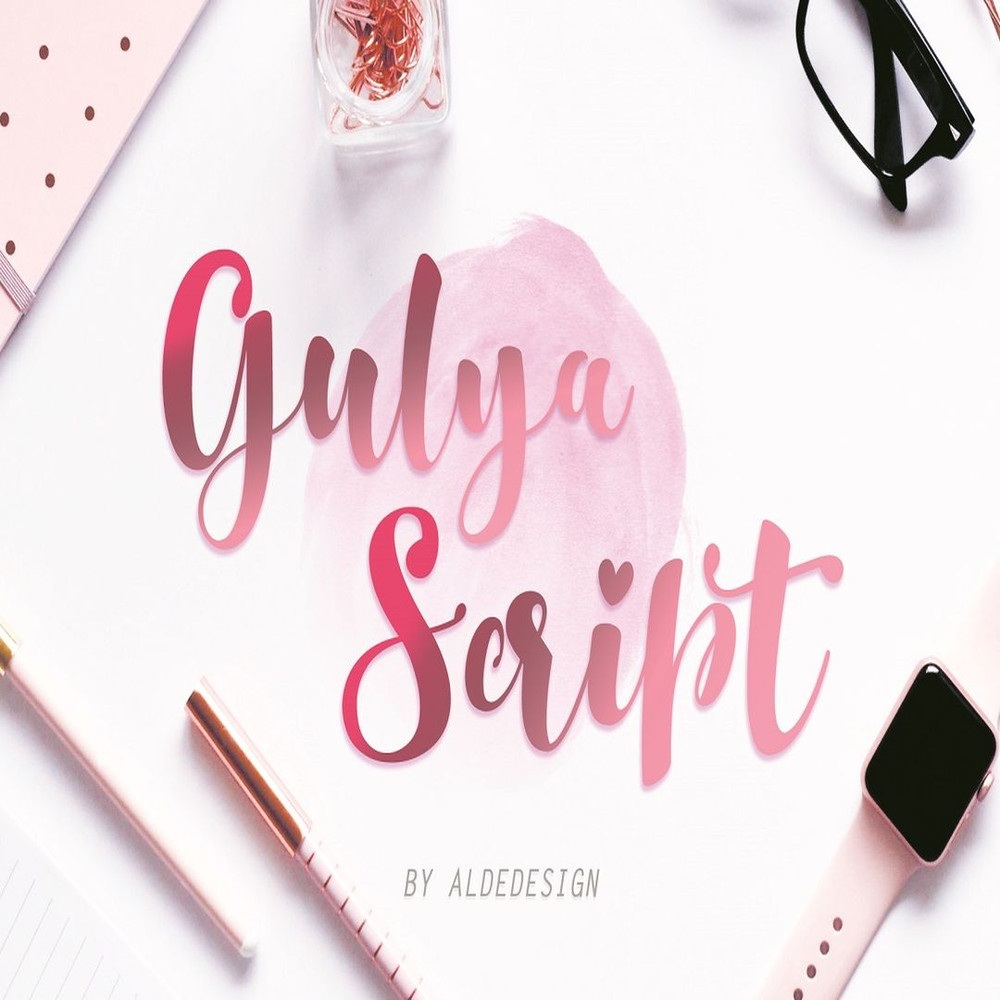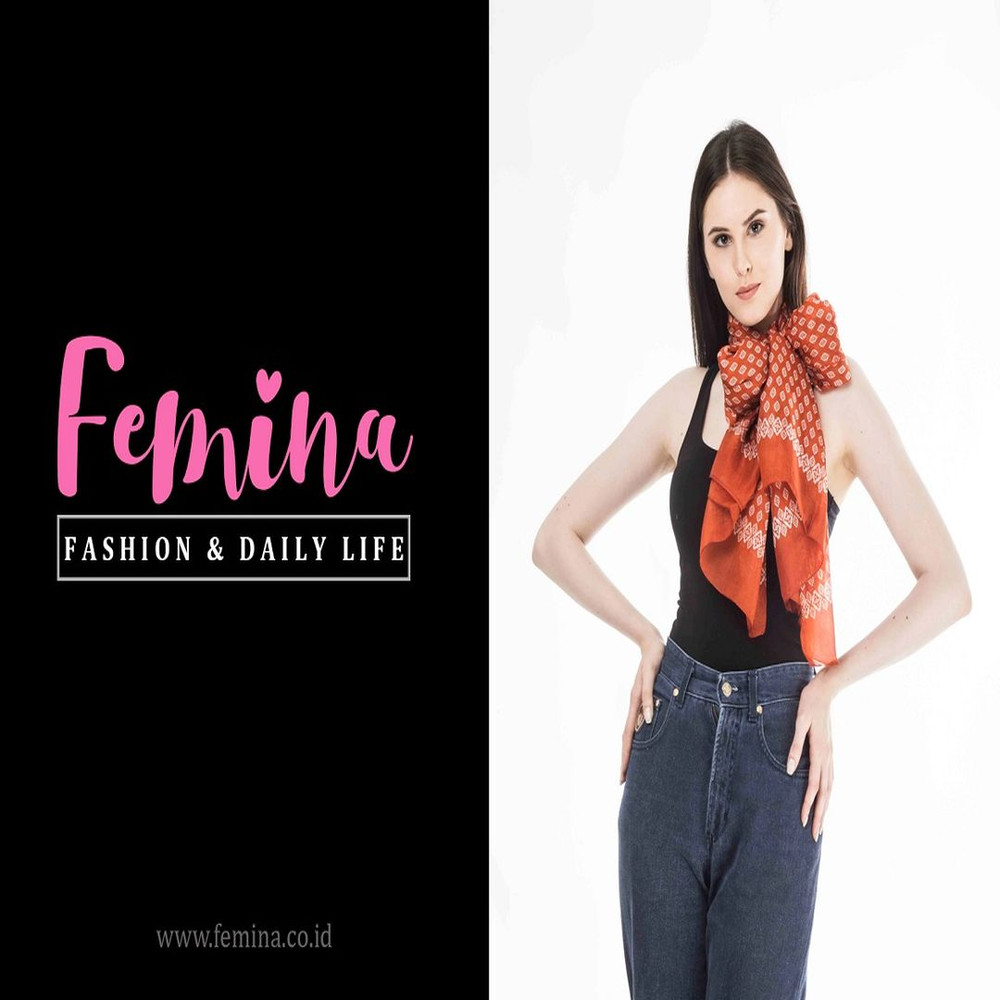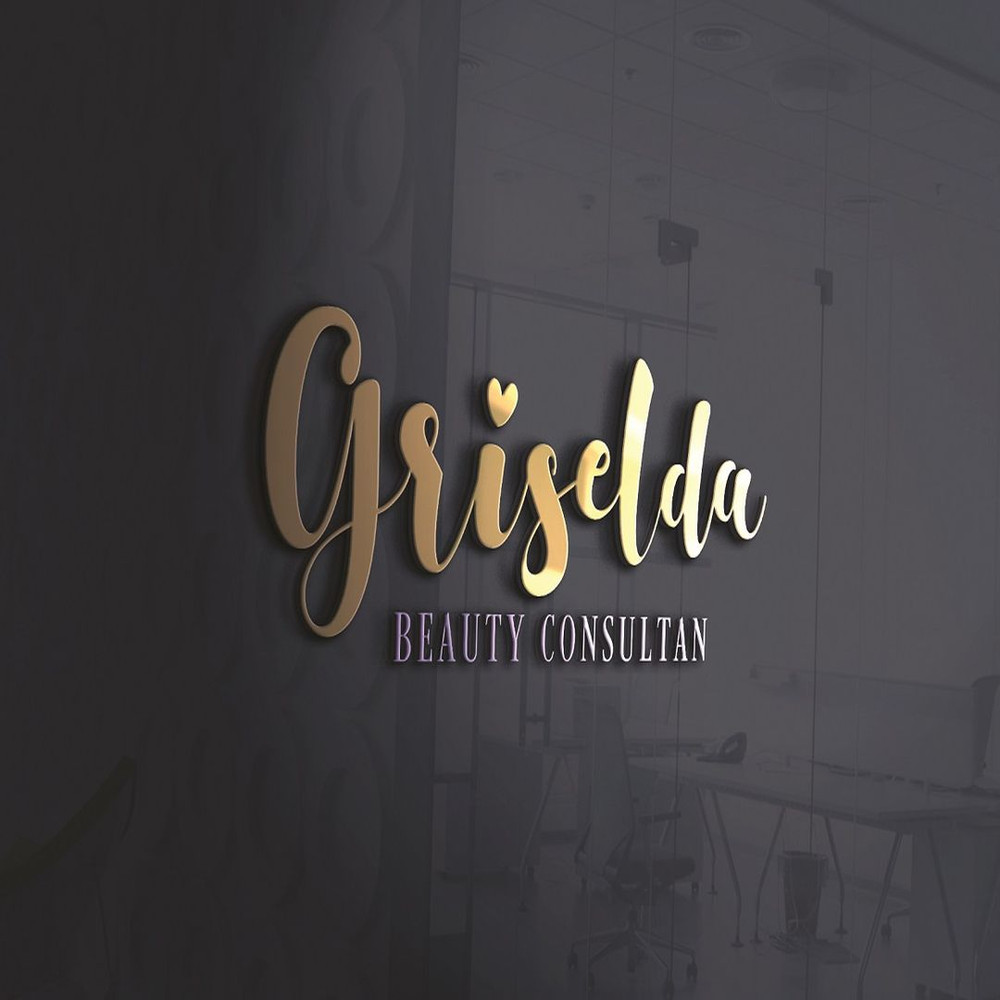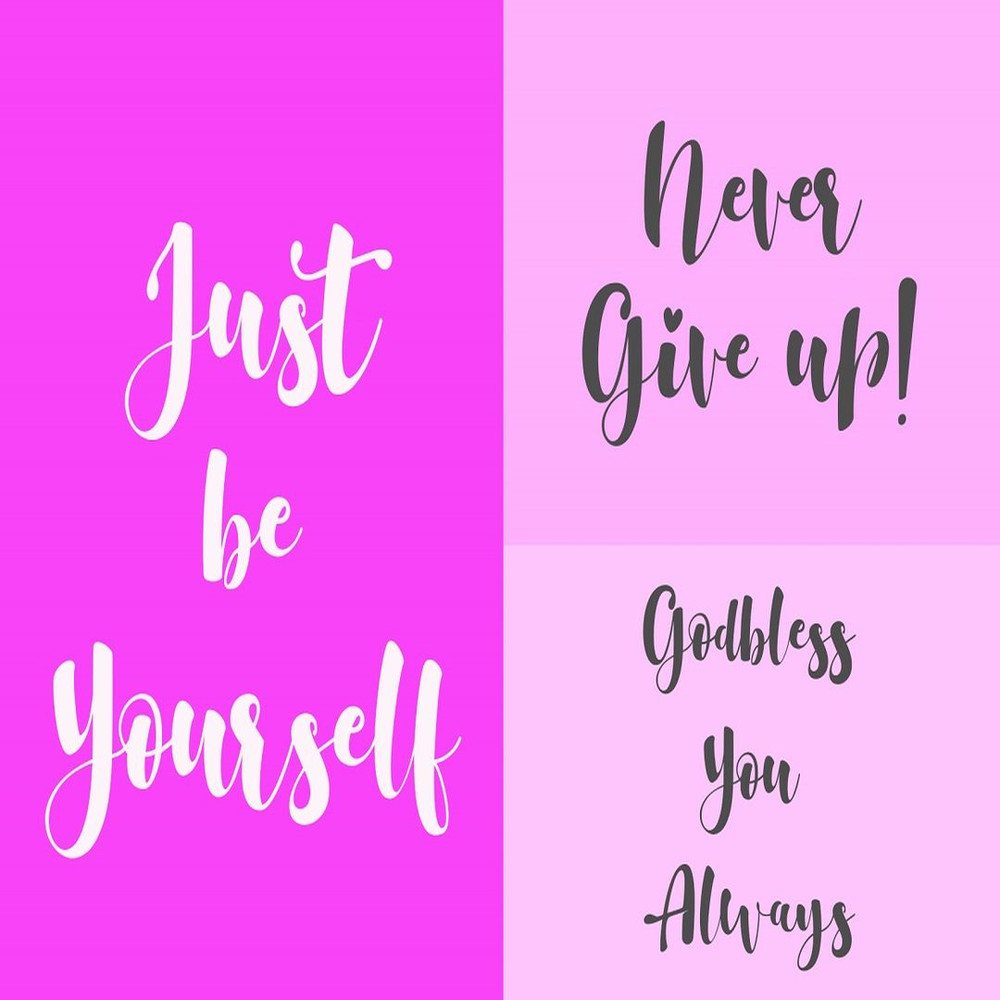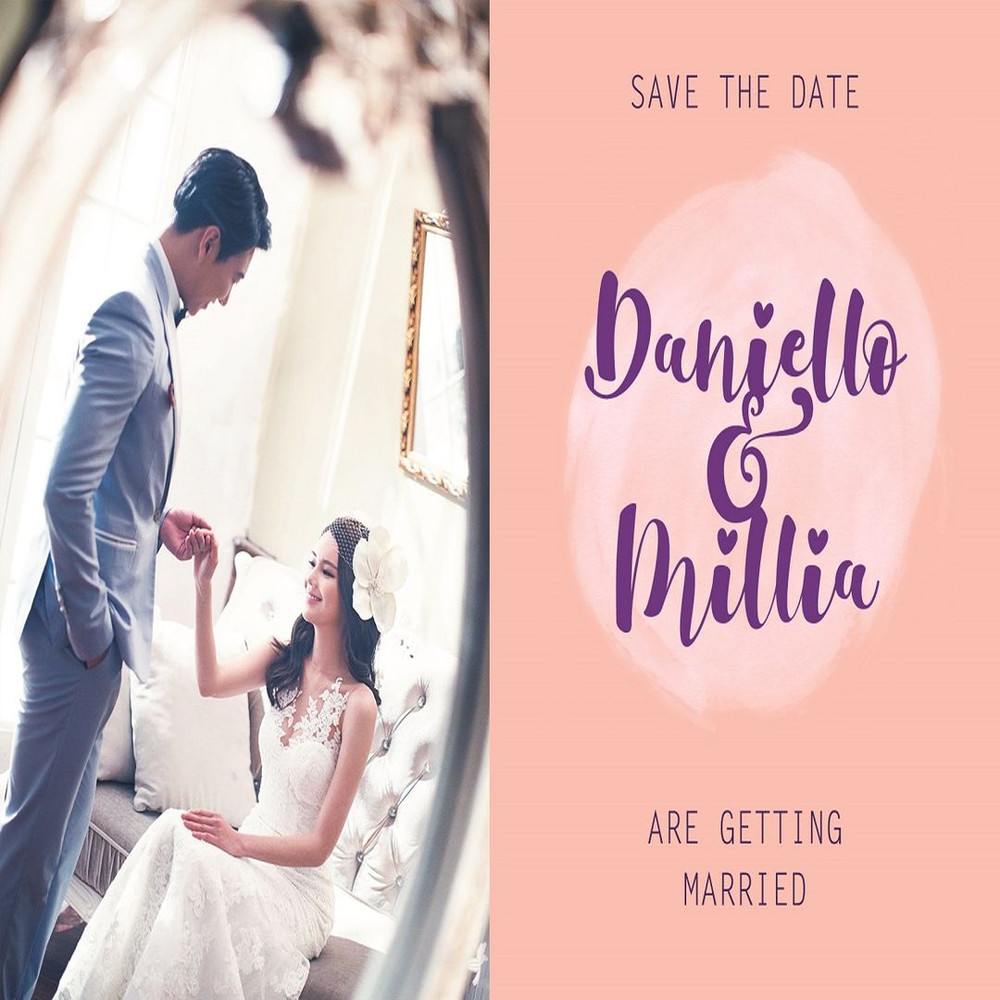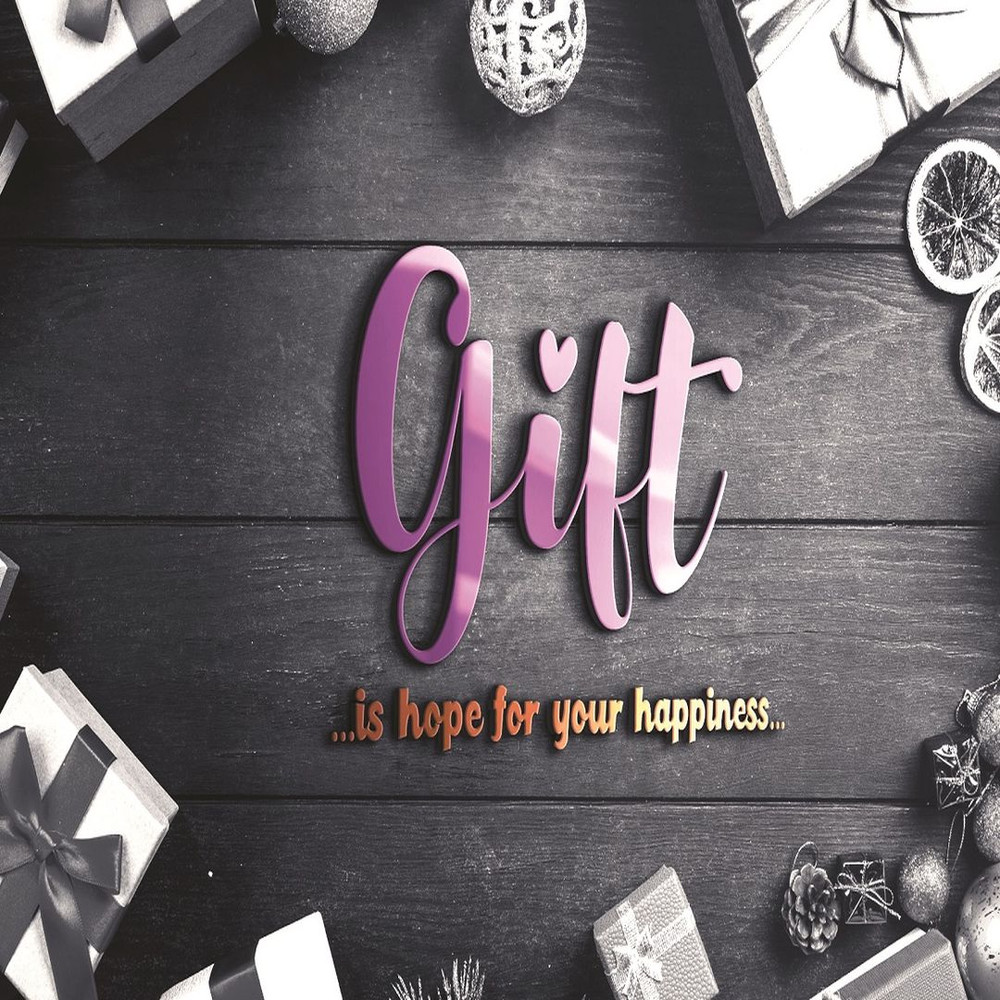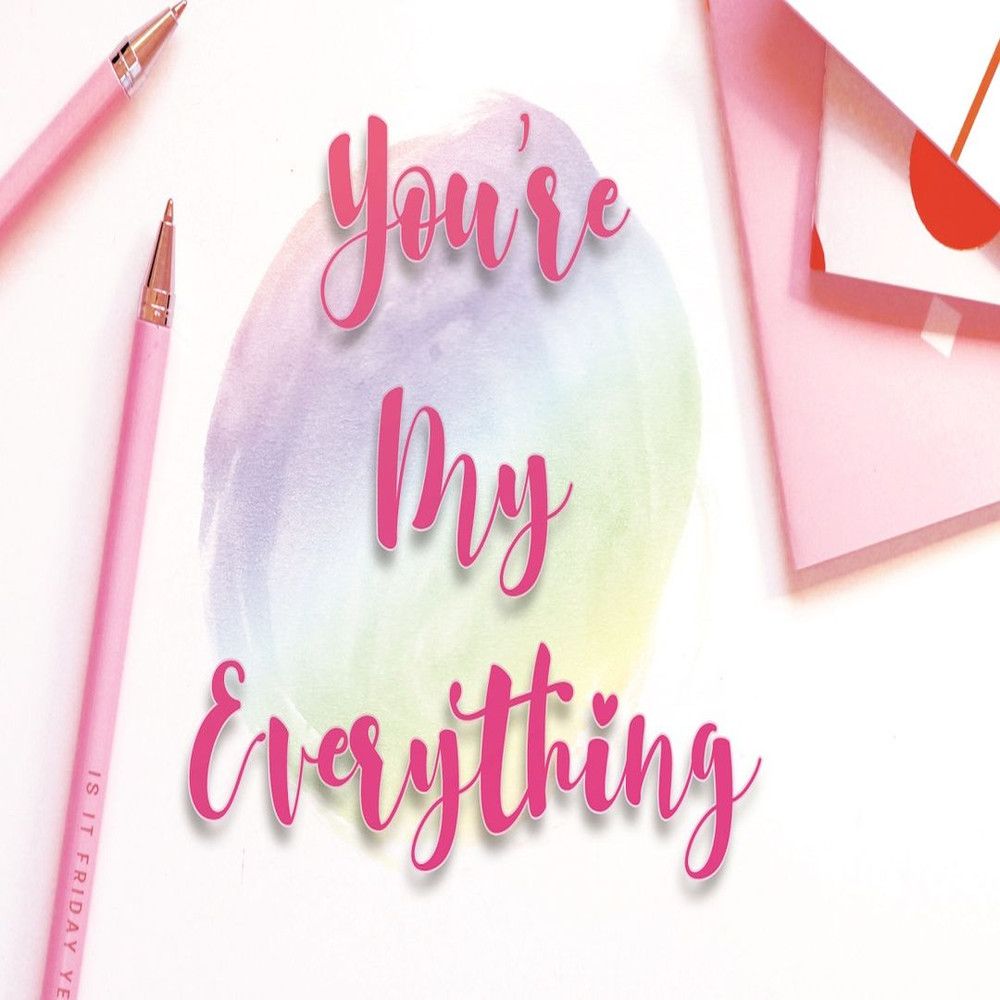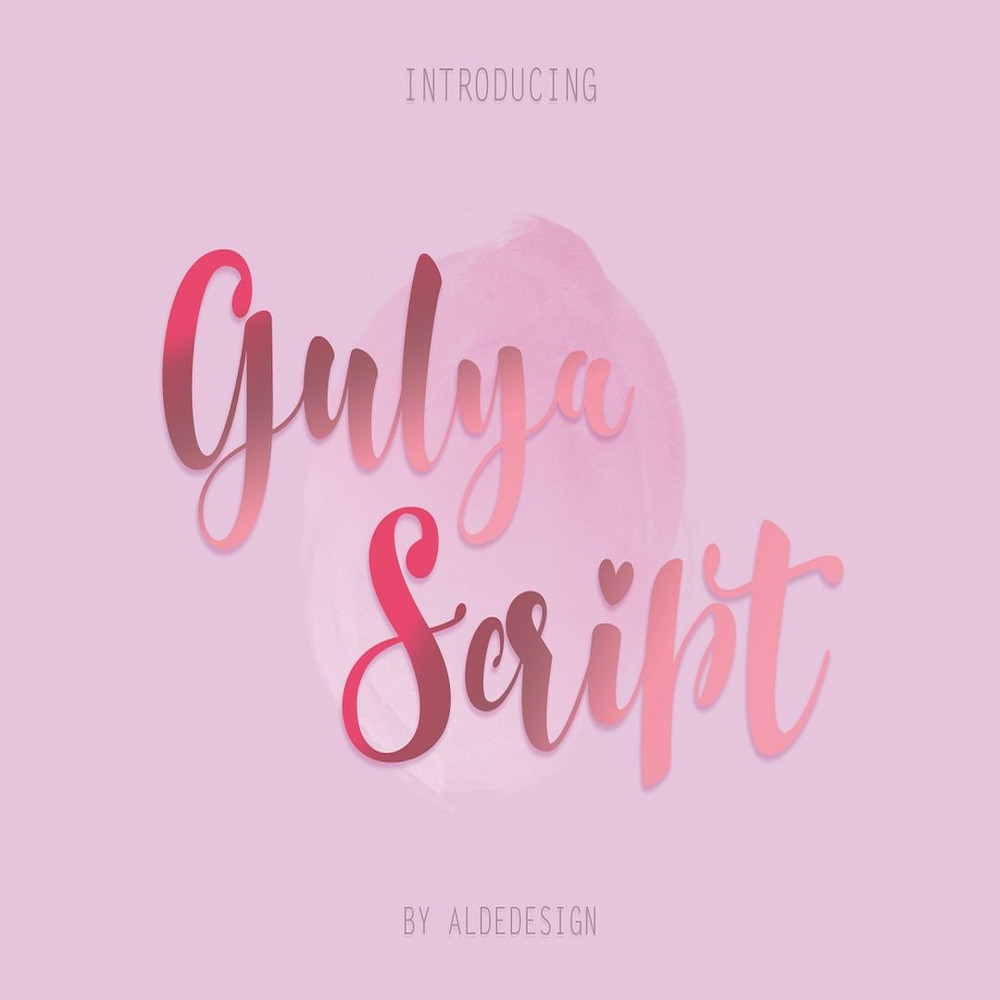
Let me introduce my newest font “Gulya Script”. This font made with love to make your new year more blushing. This font is cute and distinctive for logo, design, wedding or branding.